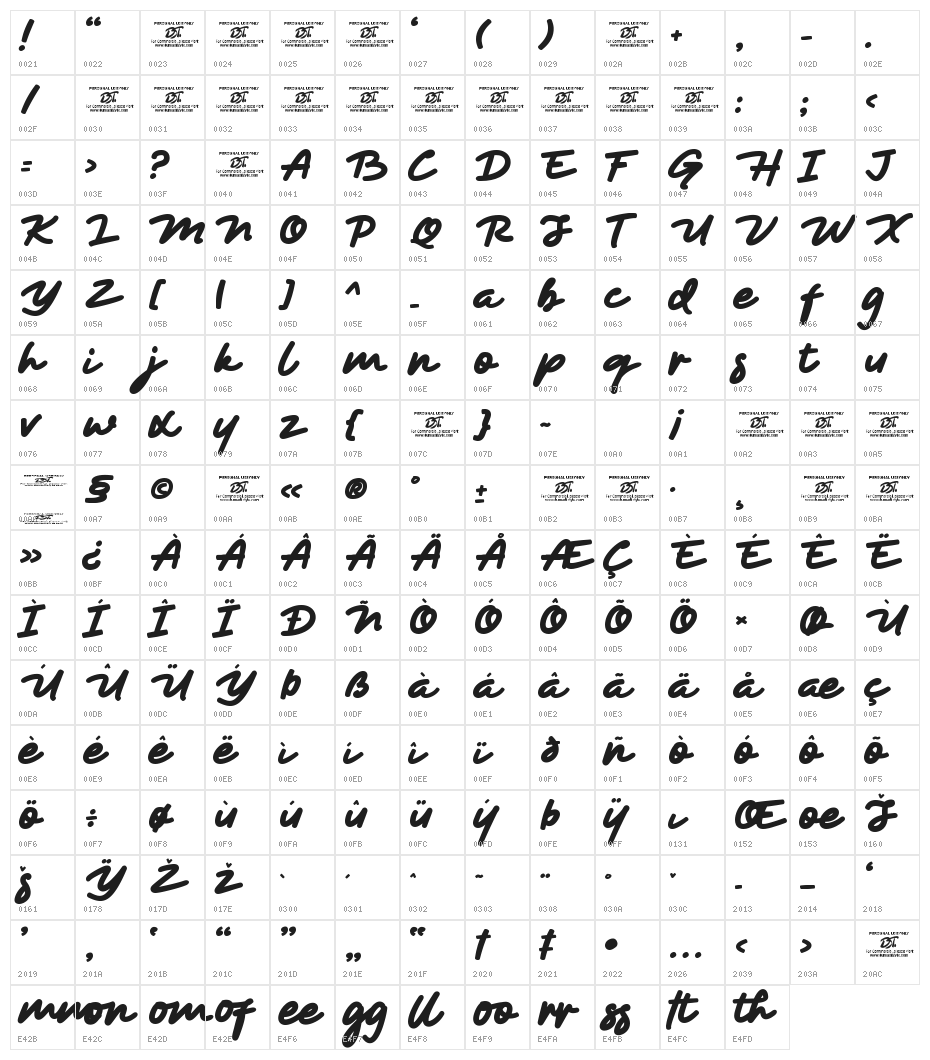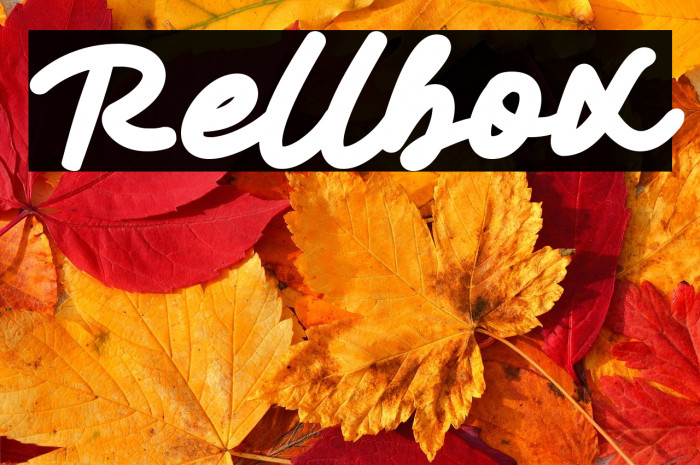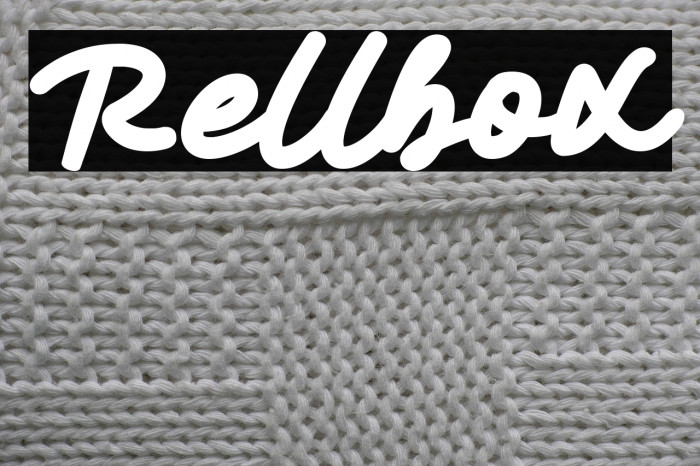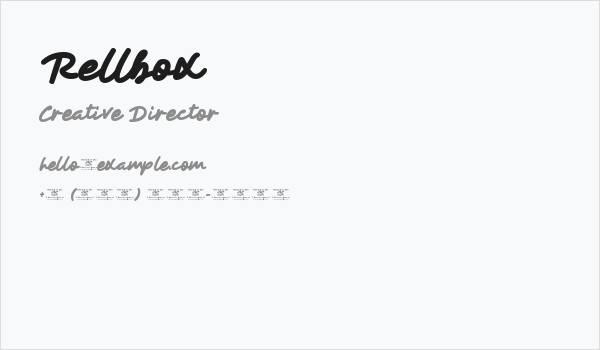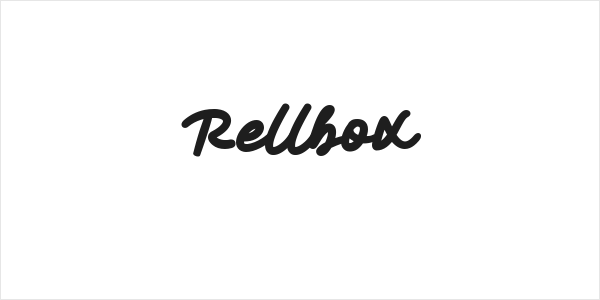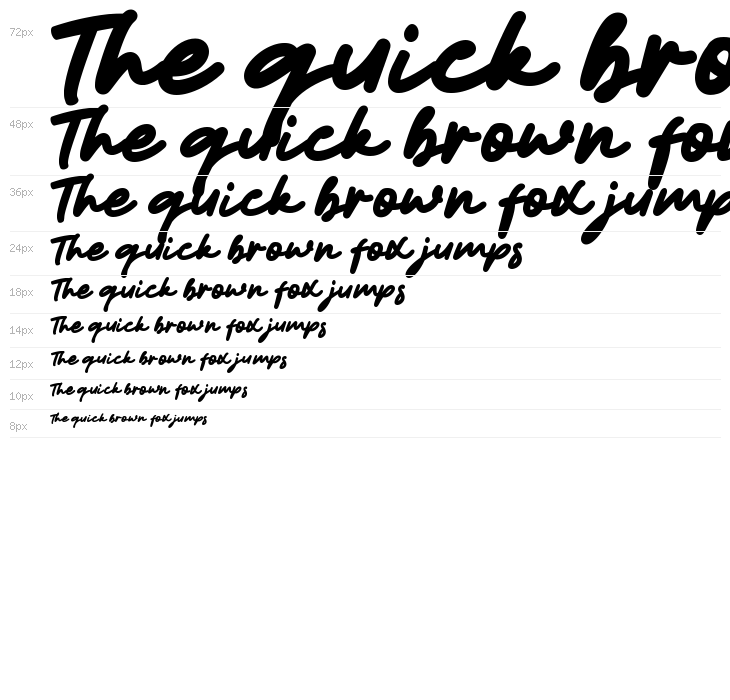
Rellbox Font
Rellbox Description
This font exhibits a dynamic and fluid script style, characterized by its bold and expressive strokes. The letters are interconnected, creating a seamless flow that mimics natural handwriting. The uppercase letters maintain a consistent height, while the lowercase letters vary slightly, adding to the font's organic feel. The special characters are integrated smoothly, maintaining the overall aesthetic. This font's boldness and style make it suitable for projects that require a personal touch or a sense of elegance.
Use CaseLogos, Invitations, Personal Branding
Proposed ProjectsIdeal for wedding invitations, greeting cards, personal branding, and logo design.